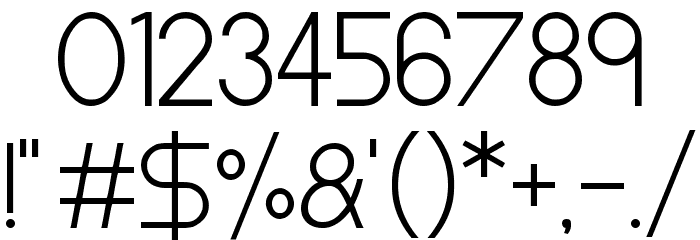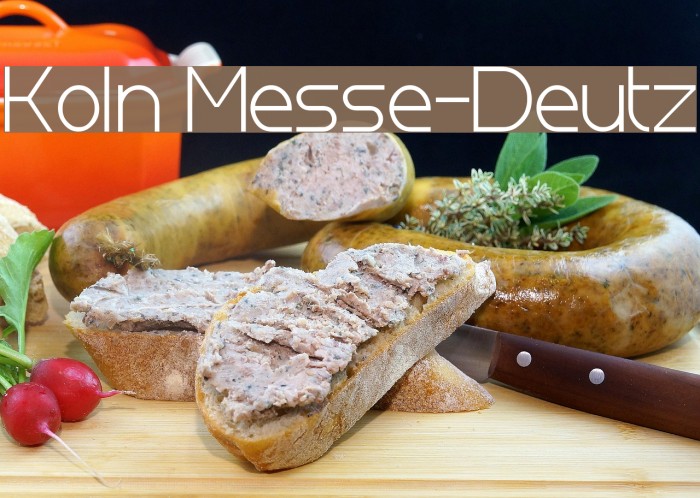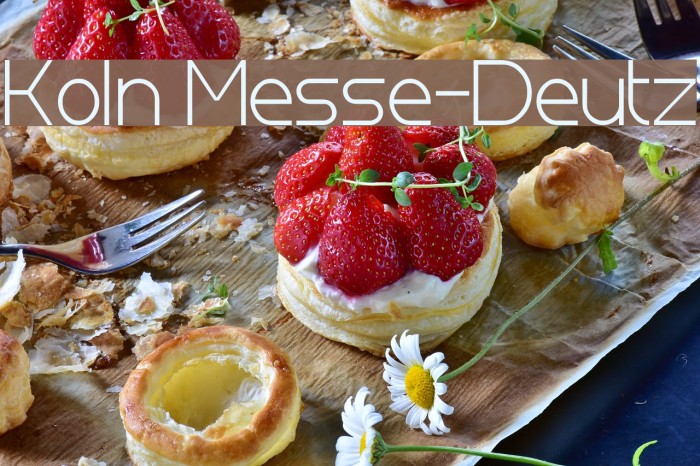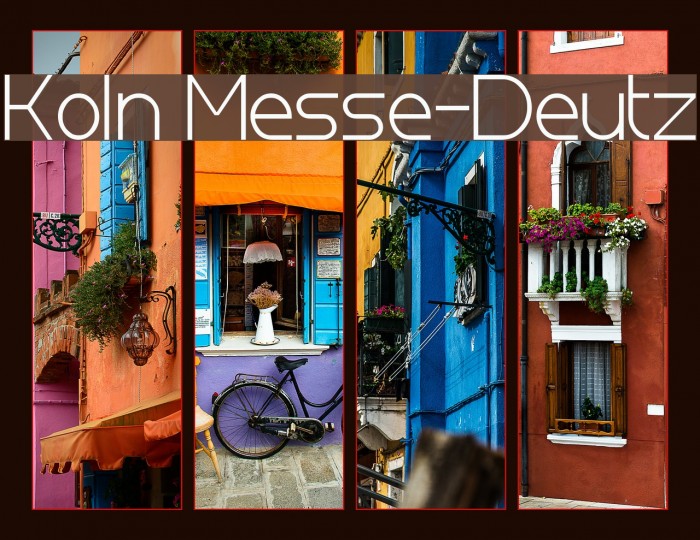
Koln Messe-Deutz Font
This font features a clean and modern design with geometric shapes and uniform line thickness. The characters are crafted with precision, showcasing a minimalist aesthetic that emphasizes clarity and readability. The uppercase letters are bold and structured, while the lowercase letters maintain a consistent style with rounded edges and open counters. The numerals are straightforward and align well with the overall design, ensuring a cohesive look. Special characters are included, maintaining the same geometric and modern style, making this font versatile for various applications.
A clean, modern geometric font with uniform line thickness and minimalist design.
- Proposed Projects: Ideal for branding, advertising, and digital interfaces where clarity and modernity are key.
- Use Case: Headlines, Logos, Digital Interfaces